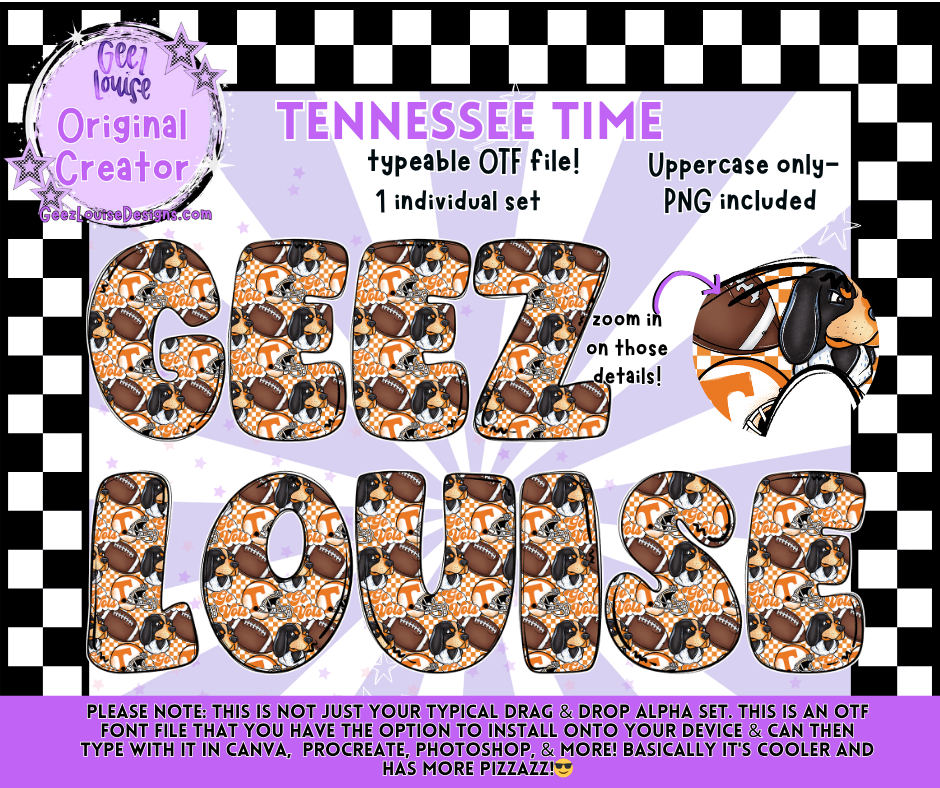
Tennessee Time Font & PNG Alpha | Vols Football OTF File
Show your team pride with the Tennessee Time font! Packed with orange, footballs, and Smokey the hound details, this font is the perfect way to celebrate your Vols spirit in every design.
🏈 Perfect for:
• Game day shirts, mugs, tumblers, and banners
• Sports graphics, tailgate invites, and team spirit projects
• Custom digital creations and small business products